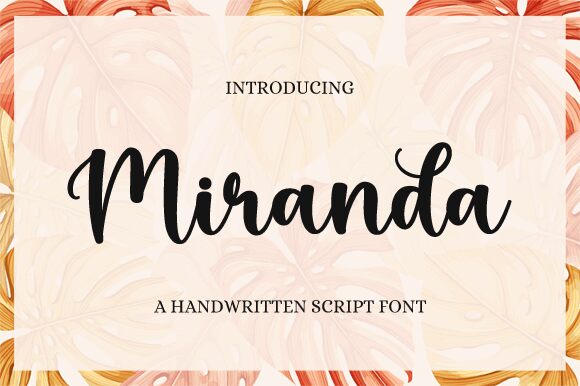
Miranda
Miranda, crafted by the adept hands at Graphix Line Studio, is a semi-bold calligraphy font that marries classic elegance with contemporary verve. Its sweeping curves and delicate flourishes exude a refined aesthetic that can elevate any project with a touch of sophistication. The semi-bold weight of Miranda adds a modern twist to the timeless beauty of calligraphy, making it versatile enough for both digital and print mediums.
This font's distinct personality shines in branding, wedding invitations, and bespoke stationery where its unique characteristics can truly stand out. It's also well-suited for editorial designs that require a blend of visual impact and readability. With Miranda, designers are equipped with an exquisite tool for crafting messages that speak with grace and style.